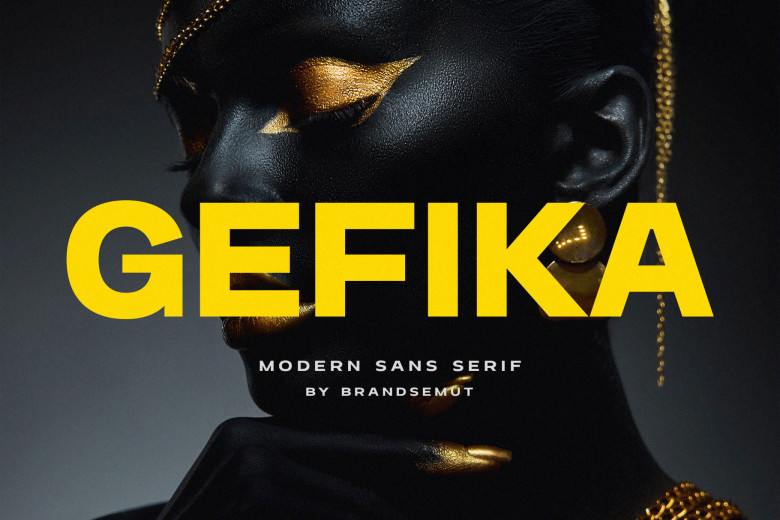
Gefika Font
Gefika features a heavy and thick sans serif letterform with simple designs that makes it easy to read. Its bold yet modern appearance is ideal for branding purposes as well as headlines or titles requiring strong aesthetic.
Gefika Sans Serif Font